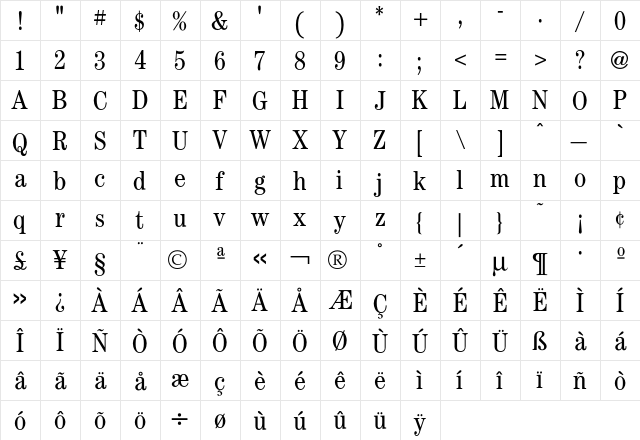
Century CondBook
Design Context for Century Typeface
Century is a composed and adaptable typeface that performs quietly and consistently across a wide range of design contexts. The condensed width makes it efficient for tight spaces without sacrificing legibility.